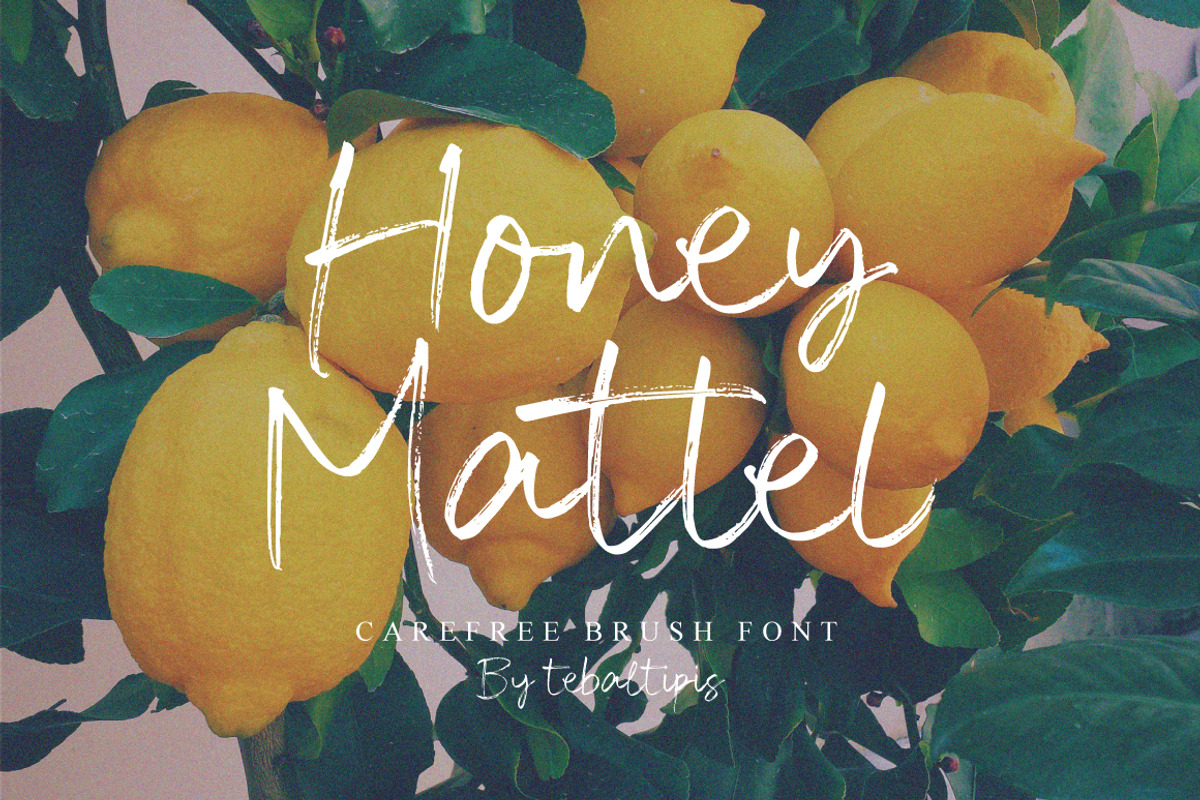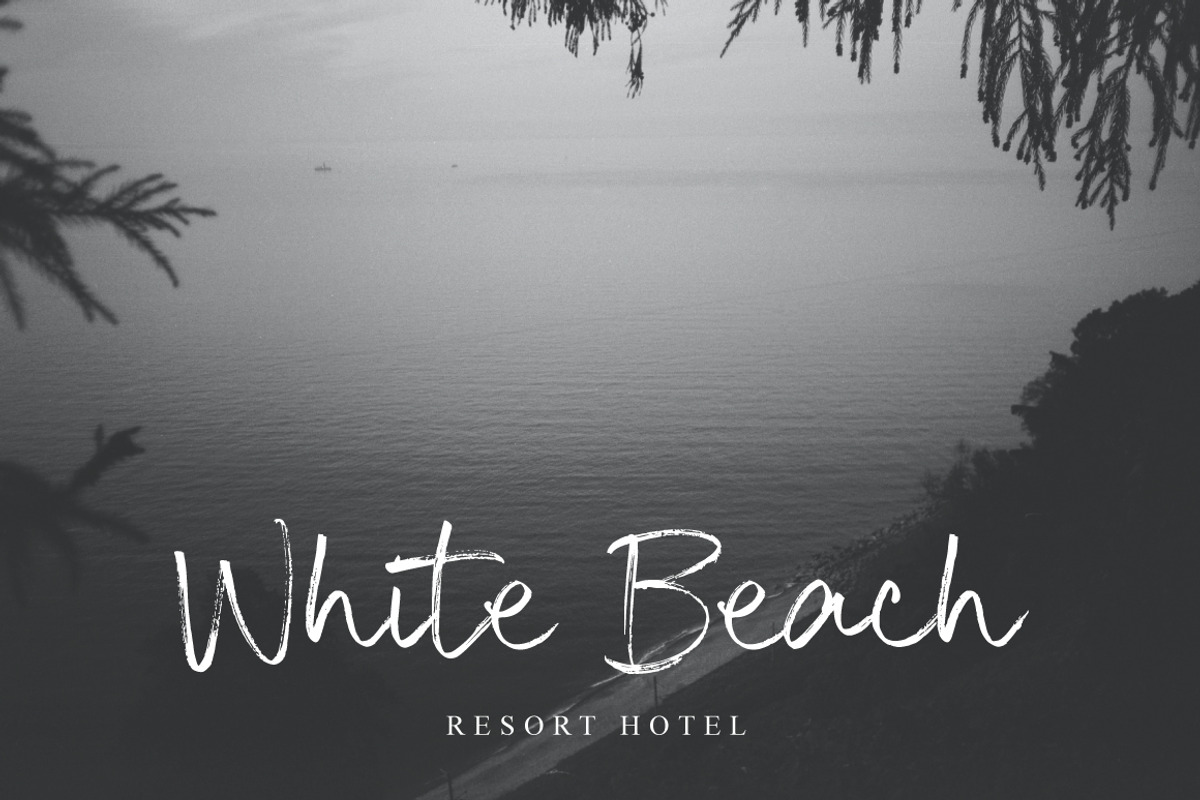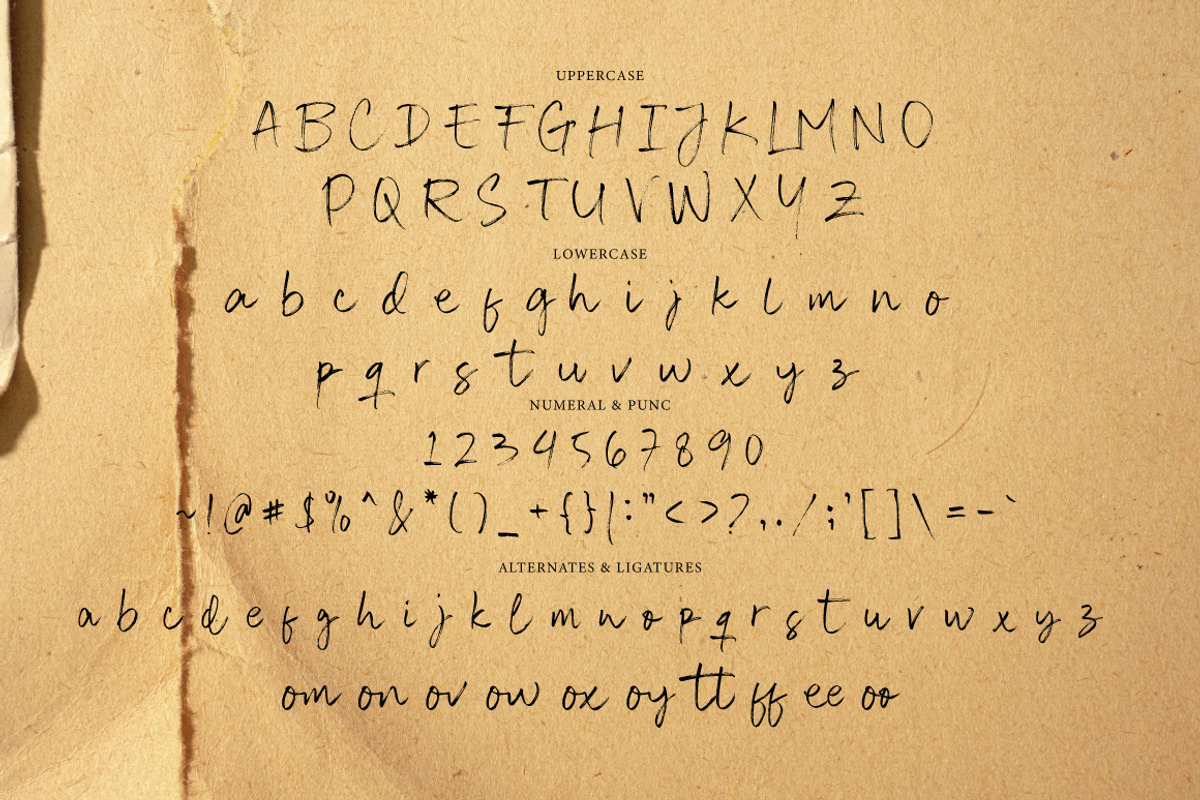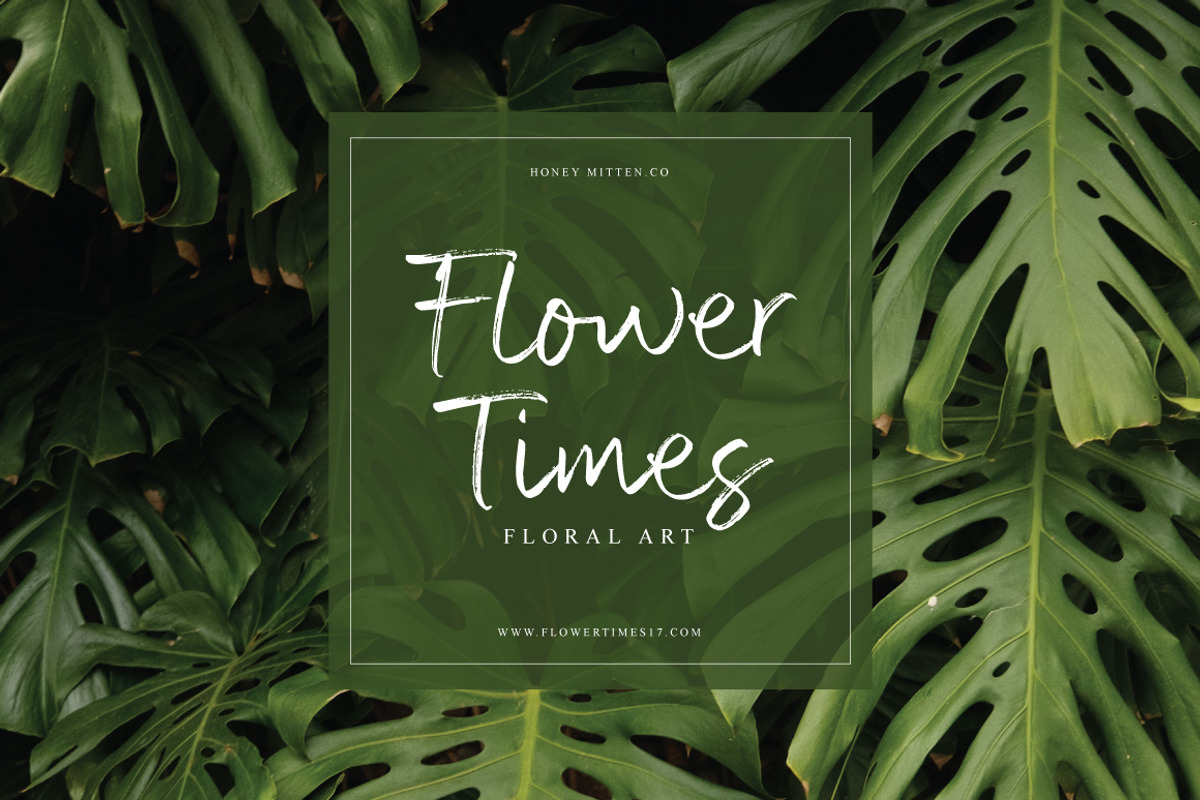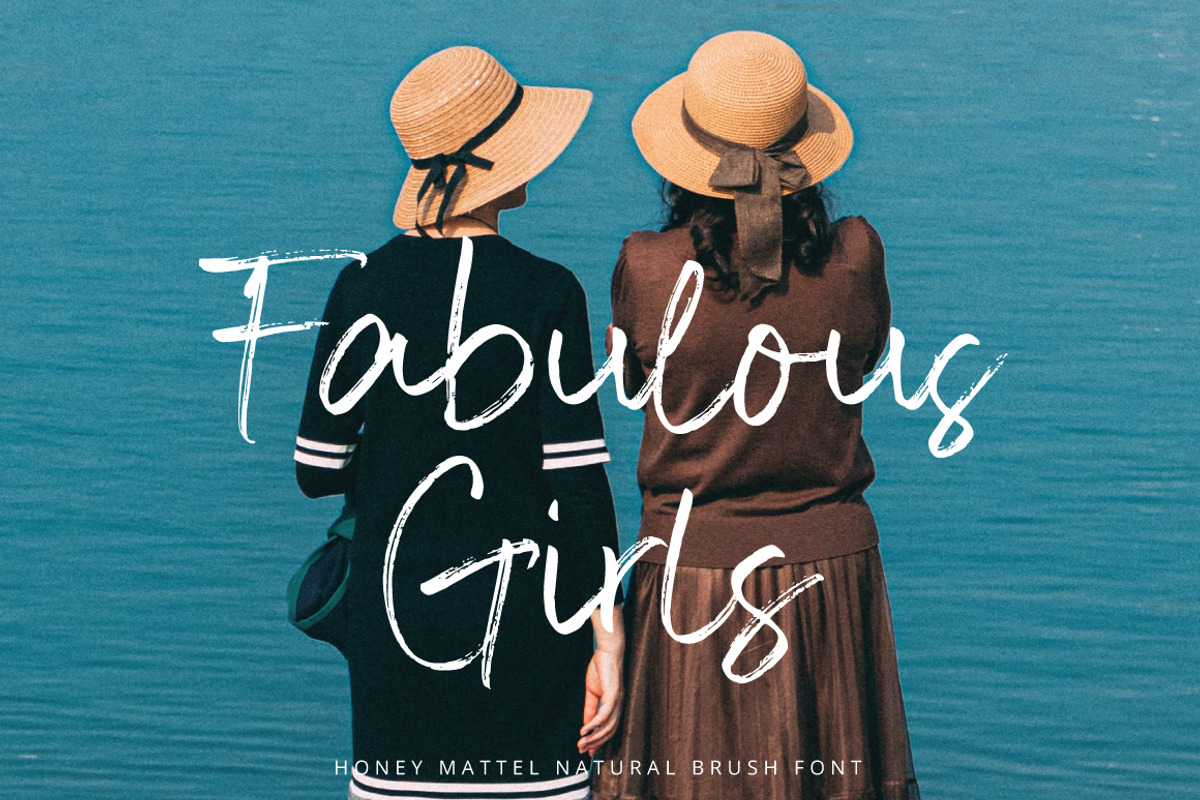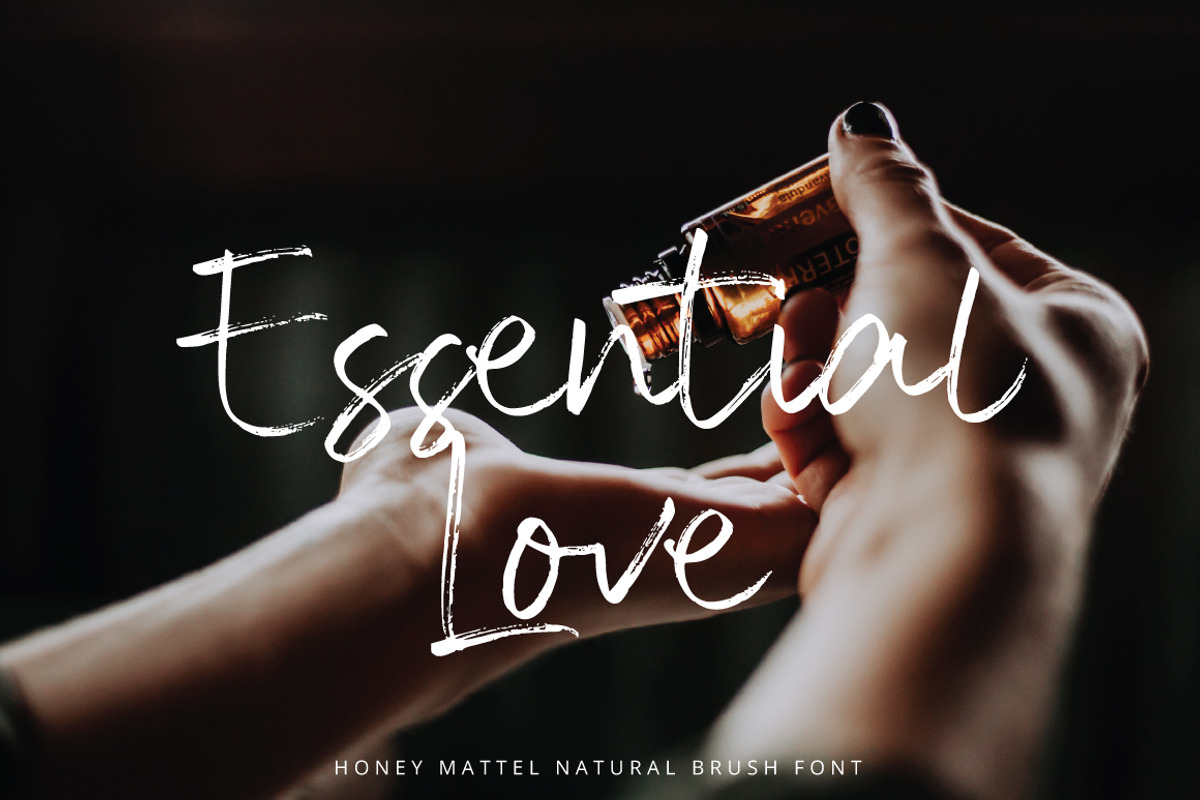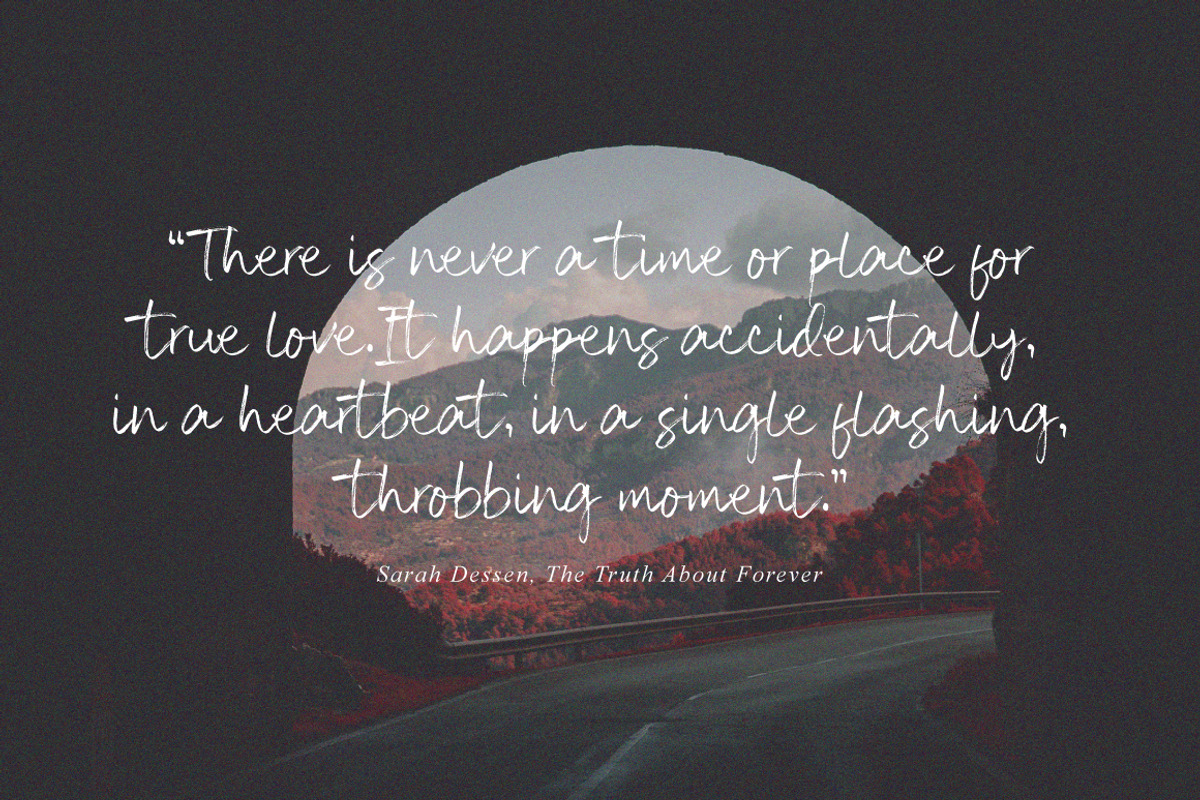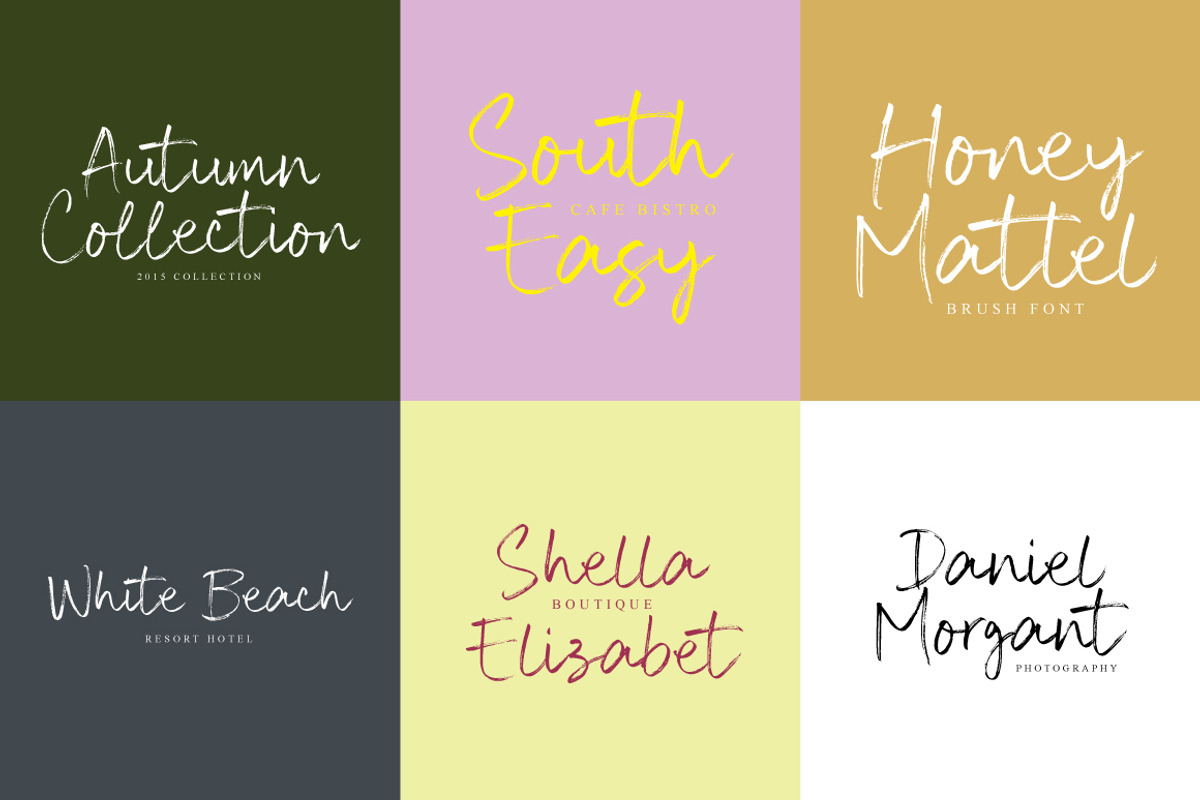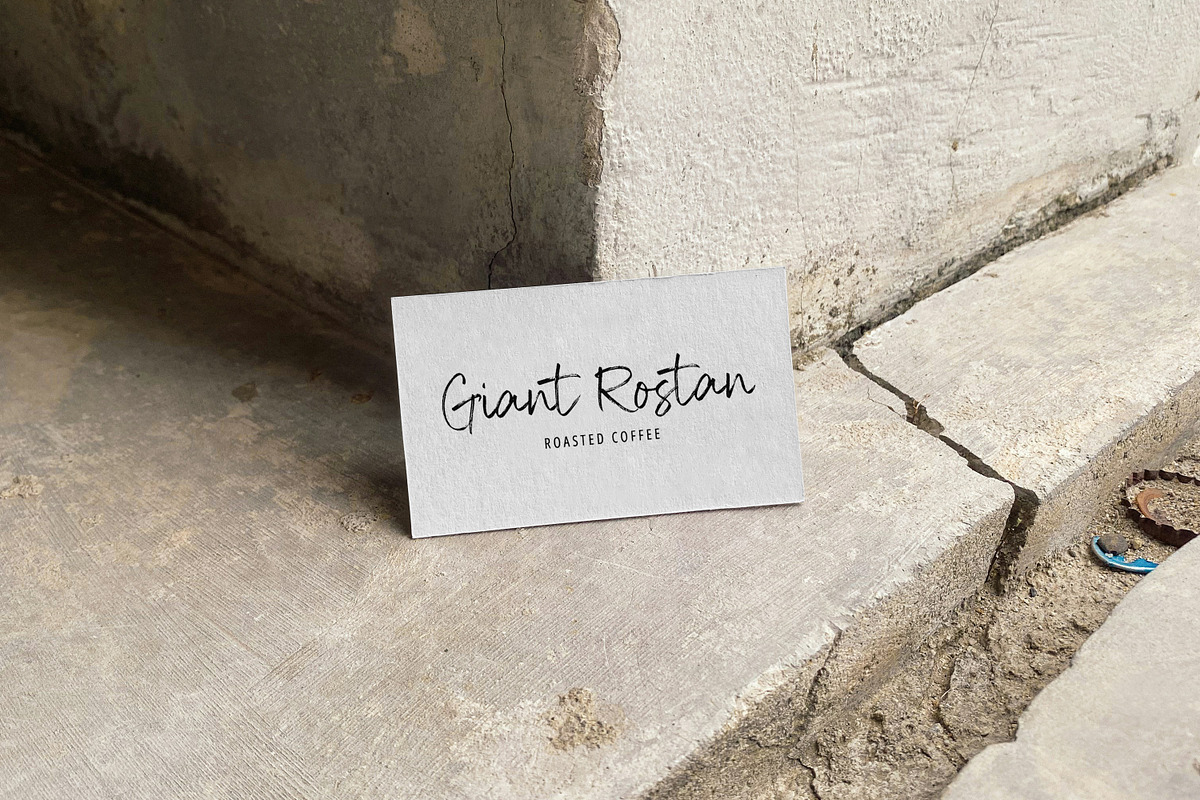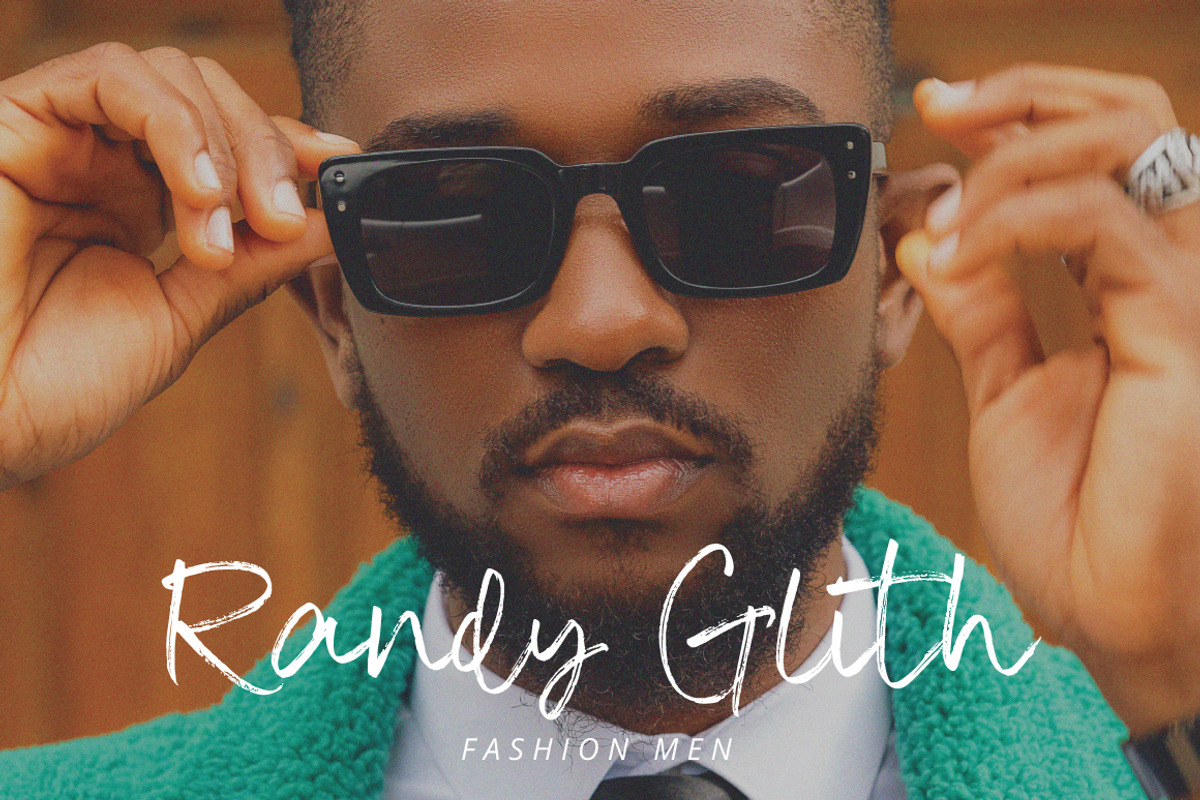
Honey Mattel - Carefree Brush
Honey Mattel – Carefree Brush Font Honey Mattel is a charming and expressive brush font designed to bring a sense of warmth and spontaneity to your creative projects. With its natural brush strokes and hand-drawn feel, this font is perfect for branding, packaging, social media graphics, and handwritten quotes. Created by Tebaltipis, Honey Mattel blends casual elegance with a playful attitude, making it ideal for designs that need a personal and authentic touch.
Rough/Brushed Texture: A “dirty” and textural effect, as if ink or paint has blended into the surface, enhancing the organic and warm feel.
Visual Affirmation: The capital letters have uneven thickness and tapered edges, providing an interesting visual dynamic.
Tropical & Bright Atmosphere: The combination of white lettering against a background of lemons and green leaves creates a fresh, natural, and energetic feel.
Subtle Typography: The tagline below “Honey Mattel” is written in thin letters, as if written with a small brush—balancing the visual power of the main title with the subtlety of the supporting typography.
Overall, this font exudes a playful, artisanal, and carefree aura, perfect for designs that require a touch of authenticity and personal expression—such as handmade product labels or creative branding.
Honey Mattel Brush Features :